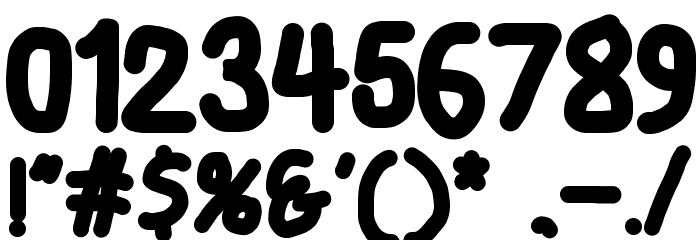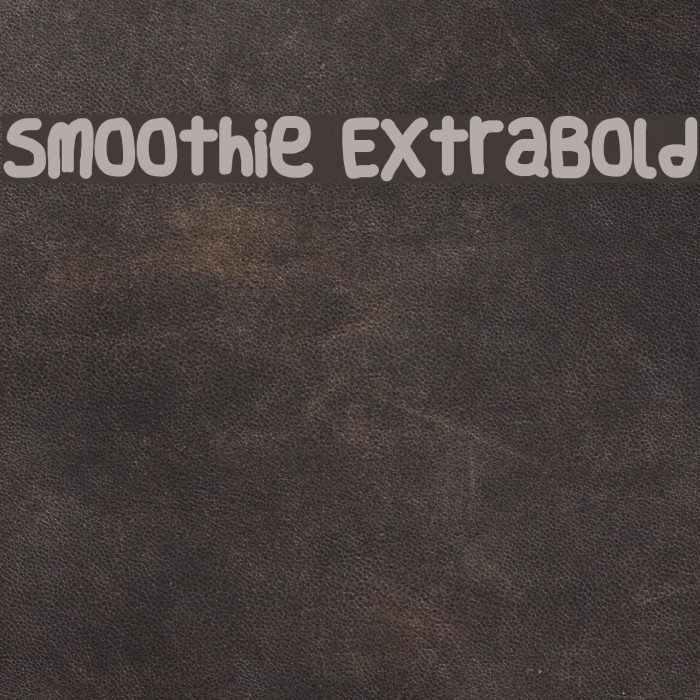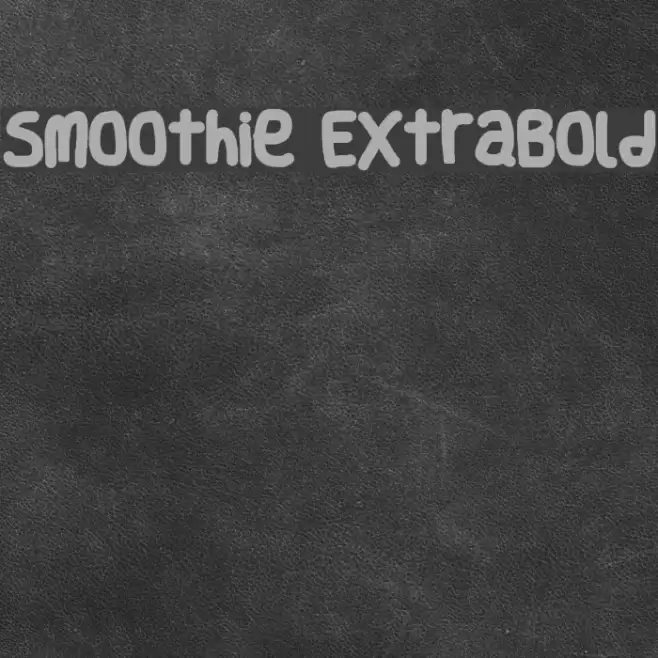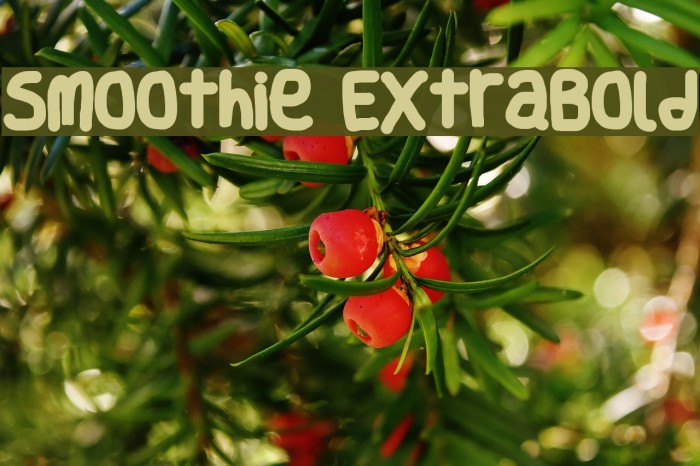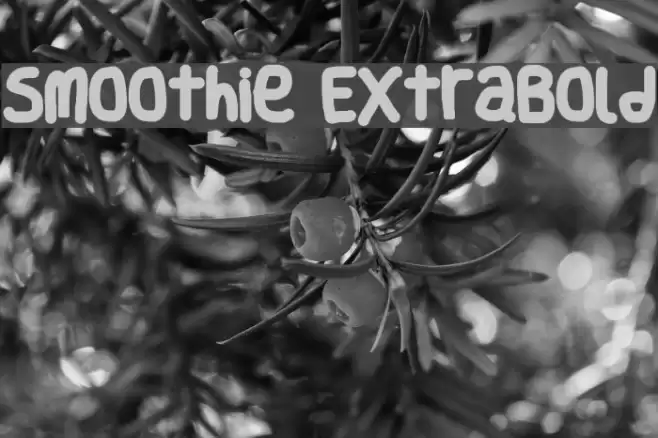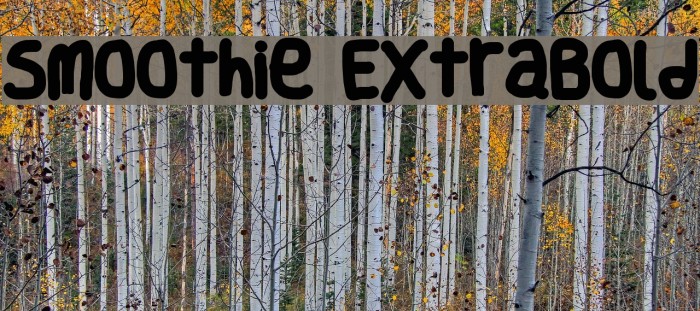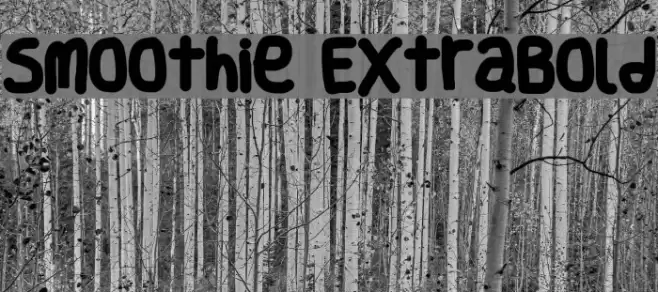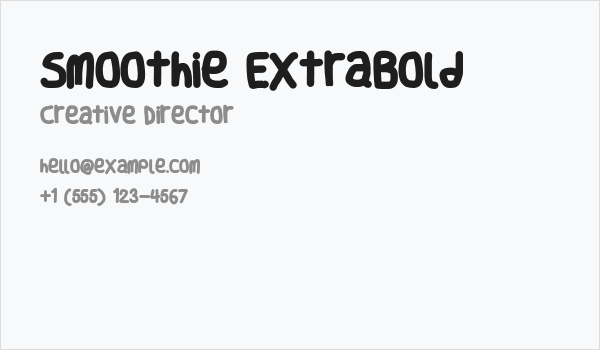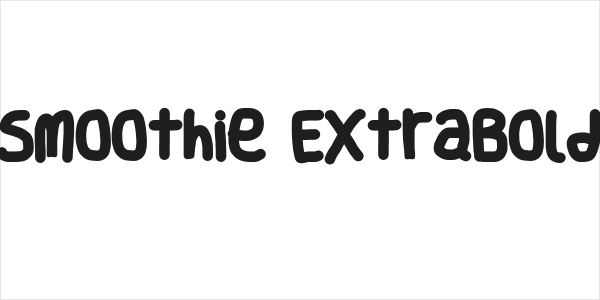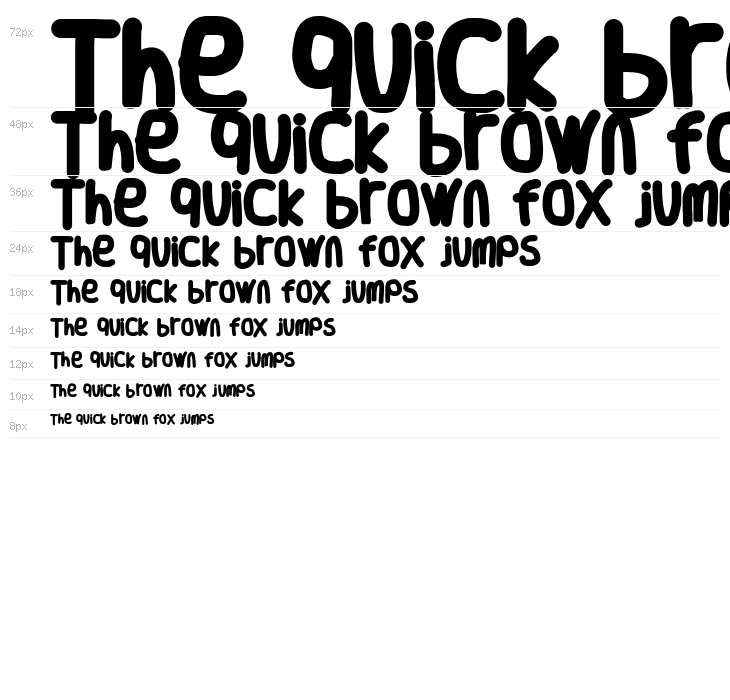
Smoothie ExtraBold Font
Smoothie ExtraBold Description
This font features a playful and bold style with rounded edges, giving it a friendly and approachable appearance. The characters are thick and uniform, creating a strong visual impact. Its bubbly and informal design makes it suitable for creative and fun projects. The uppercase and lowercase letters maintain a consistent weight, while the numbers and special characters blend seamlessly with the overall aesthetic. The font's smooth curves and lack of sharp angles contribute to its casual and relaxed feel, making it ideal for projects that aim to convey warmth and friendliness.
| Proposed Projects | Ideal for children's books, playful branding, posters, and social media graphics. |